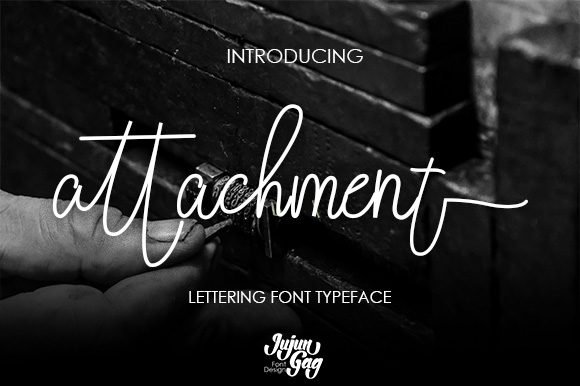
Stylish Expression: Unleash the Beauty of Attachment Font
Have you ever stared at a blank page, waiting for inspiration to strike? For designers, this moment can be both thrilling and daunting. The blank slate is a chance to create something truly unique and breathtaking. It’s in these moments that we turn to the right tools, and that’s where the Attachment Font comes in.
This stunning handwritten font is a stylish homage to classic calligraphy, adding an air of elegance to any design. Whether you’re crafting a wedding invitation, a logo, or a typography piece, Attachment Font is the perfect choice for making original and outstanding designs. With its charming and sophisticated feel, it’s no wonder designers are turning to this versatile font to elevate their work.
Key Features of Attachment Font
- Unique Character Set: Attachment Font boasts an extensive character set, including over 2,000 glyphs, covering multiple languages and scripts, making it a versatile choice for global applications.
- Advanced Typography: This font features advanced typographic capabilities, including ligatures, swashes, and ornaments, allowing designers to create visually stunning and intricate text arrangements.
Attachment Font Review
Overall, I’d say Attachment Font is a decent addition to any font library. It has its unique charm ✨, which can be a refreshing change from the usual sans-serif or serif fonts.
- ✨ Unique design style that can add character to a design
- ✨ Good legibility, even at smaller font sizes
- ✨ Supports a wide range of languages
However, like any font, Attachment Font has its limitations ✠️. Here are a few things to keep in mind:
- ⚠️ Limited font weights and styles
- ⚠️ May not be suitable for formal or professional designs
- ⚠️ Can be difficult to read at very large font sizes
Overall, I’d recommend Attachment Font for personal or creative projects where you want to add a touch of uniqueness. However, for more formal or professional designs, you may want to consider other options.
Attachment Font is commonly used in:
1. Social media graphics to create a playful and whimsical feel.
2. Branding materials, such as logos and business cards, to add a touch of personality.
3. Digital invitations and event graphics to create a unique and memorable look.